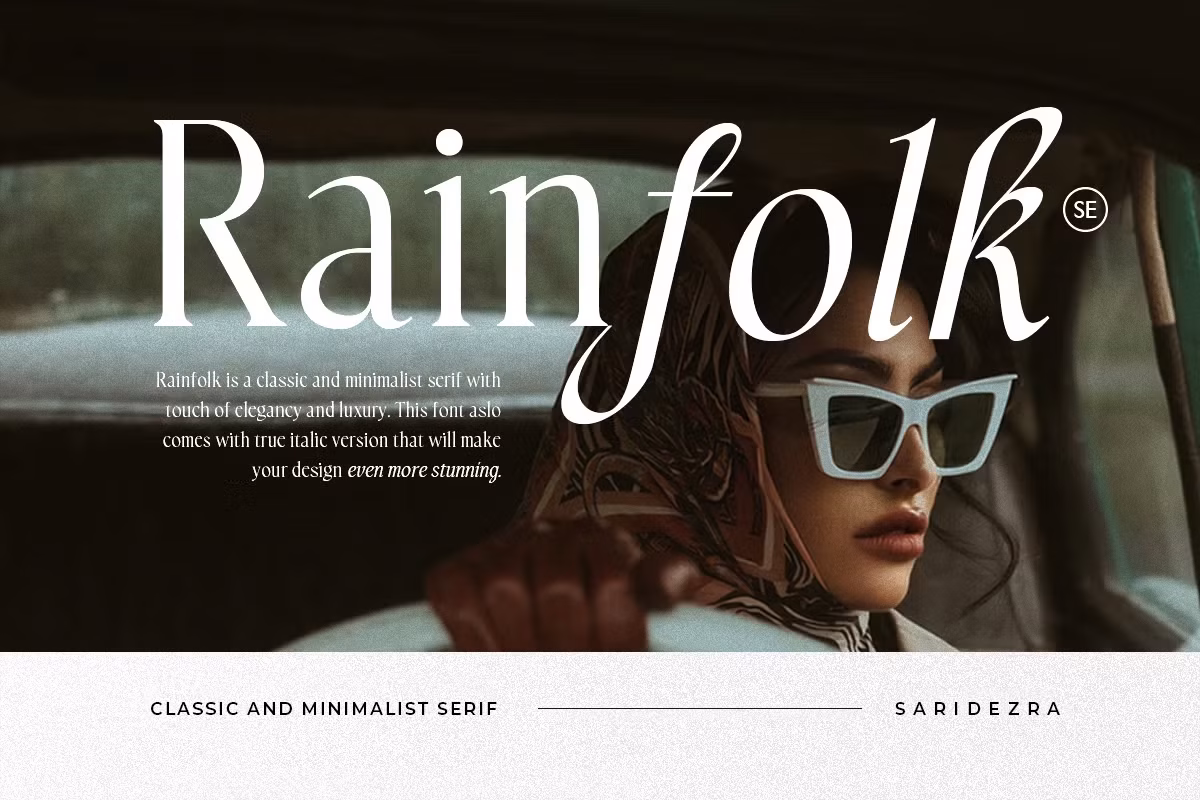
Rainfolk - Classic Minimalist Serif Free Download
Rainfolk - Classic Minimalist Serif Font Free Download
Rainfolk - Classic Minimalist Serif Font Free Download is a timeless, elegant serif typeface designed with minimalist aesthetics in mind. Featuring refined letterforms and clean lines, this font is perfect for high-end branding, editorial layouts, packaging, and any design project that requires a sophisticated and classic touch. Its modern simplicity and readability make it suitable for both digital and print applications.
Using the Rainfolk - Classic Minimalist Serif Font Free Download adds an air of refinement and clarity to your typography. Whether you're working on a luxurious brand identity, crafting an editorial spread, or designing premium marketing materials, this font enhances your designs with a clean, stylish appearance.